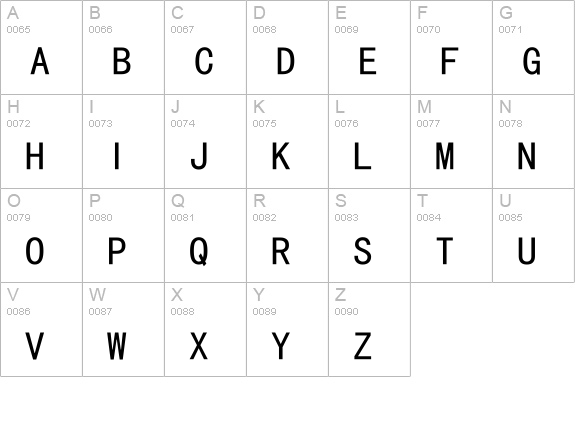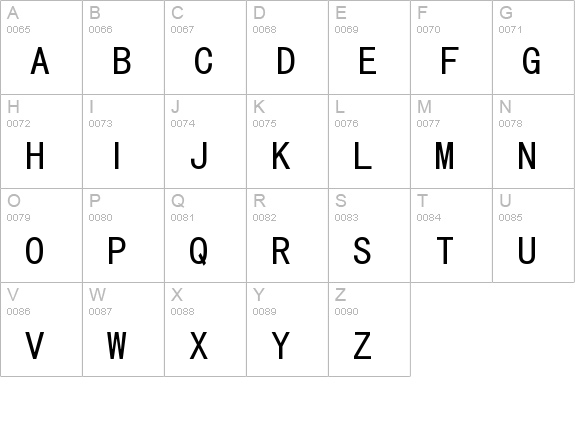
KaiTi font is a beautifully crafted typeface that exudes elegance and sophistication. Its delicate strokes and graceful curves make it the perfect choice for creating stunning designs and captivating typography. With its timeless appeal, KaiTi font adds a touch of class to any project, whether it's a wedding invitation, a logo design, or a magazine layout. One of the best things about KaiTi font is that it is freely available to download at FontsMarket.com. This means that you can easily access and use this amazing font without any cost. Whether you're a professional designer or a hobbyist, having access to high-quality fonts like KaiTi can greatly enhance your creative endeavors. The versatility of KaiTi font is another reason why it is a must-have for any font collection. Its clean, modern look makes it suitable for a wide range of design projects, from branding and advertising to web design and print materials. With its wide variety of weights and styles, you can easily customize KaiTi font to fit your specific needs and create a cohesive and consistent visual identity. Not only does KaiTi font offer aesthetic appeal, but it also ensures readability and legibility, making it a practical choice for both print and digital design. Its generous letter spacing and distinct letterforms make it easy to read even at small sizes, ensuring that your message is conveyed clearly and effectively. In conclusion, KaiTi font is a stunning typeface that combines elegance, versatility, and practicality. Its freely available download at FontsMarket.com makes it an accessible choice for designers of all levels. Whether you're working on a personal project or a professional endeavor, KaiTi font is sure to elevate your design and leave a lasting impression.